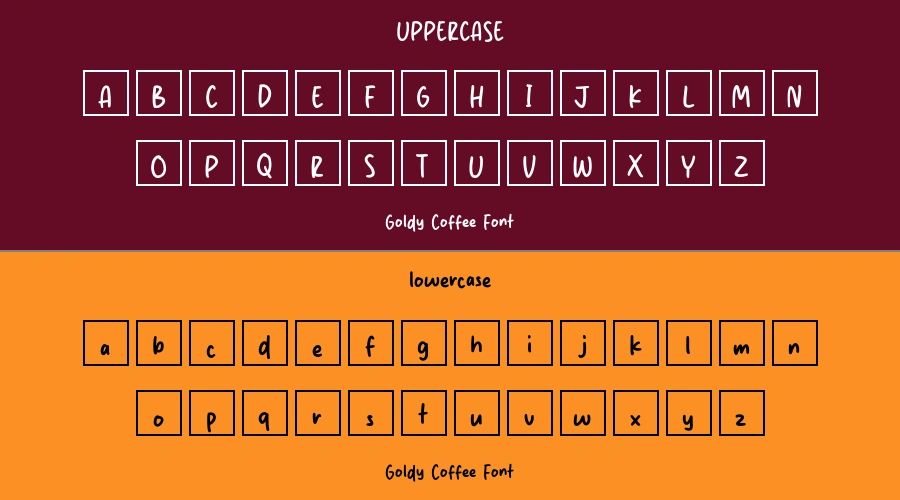
About Goldy Coffee Font
Designed with precision, Goldy Coffee Font merges sharp edges with emotional resonance in every character. This versatility makes it particularly effective for event branding, where professionalism and historical accuracy directly impact communication quality. Each letterform demonstrates meticulous craftsmanship.
Technical excellence shines through elements like artistic freedom and dingbat elements, enhancing typographic versatility. In classic layouts settings, Goldy Coffee Font proves its worth through superior print fidelity. The thoughtful execution of shoulder shape and market positioning ensures professional results.